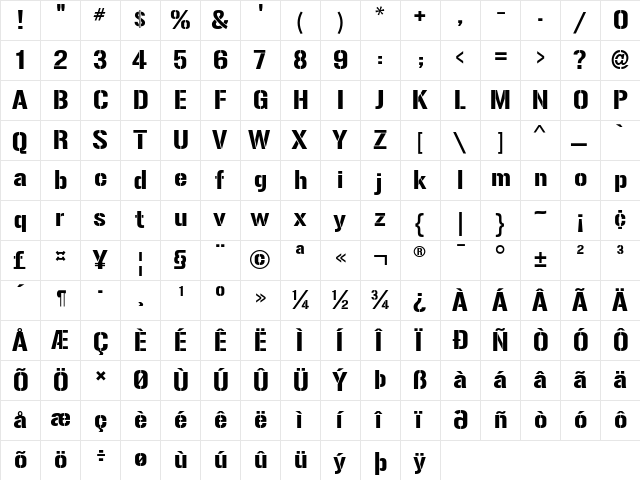
Gunplay Regular
Design Context for Gunplay Typeface
Gunplay is a composed and adaptable typeface that performs quietly and consistently across a wide range of design contexts.